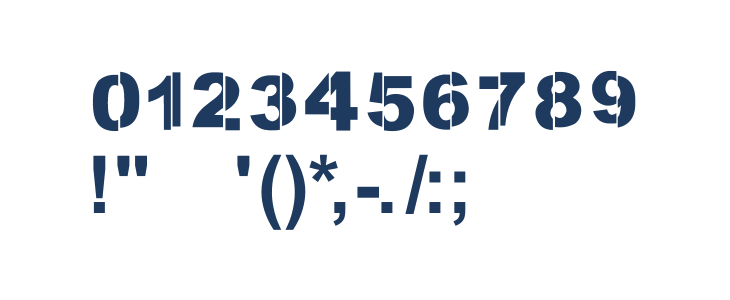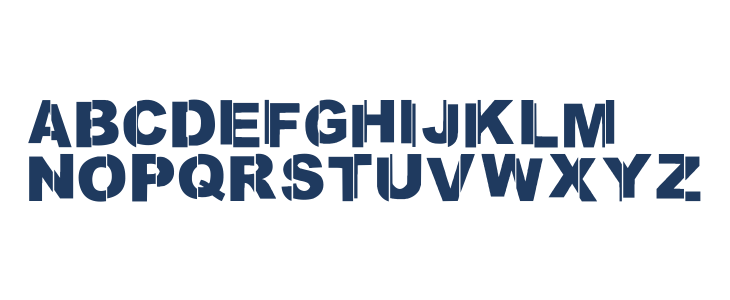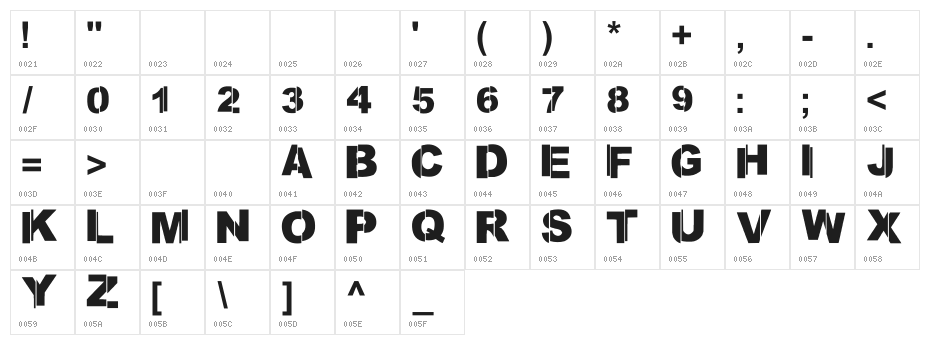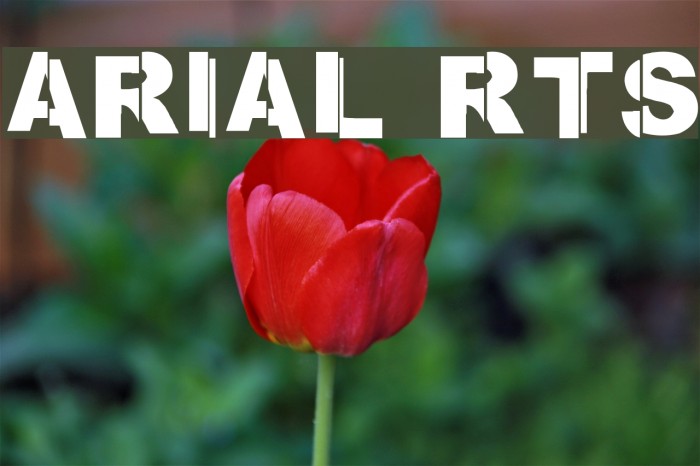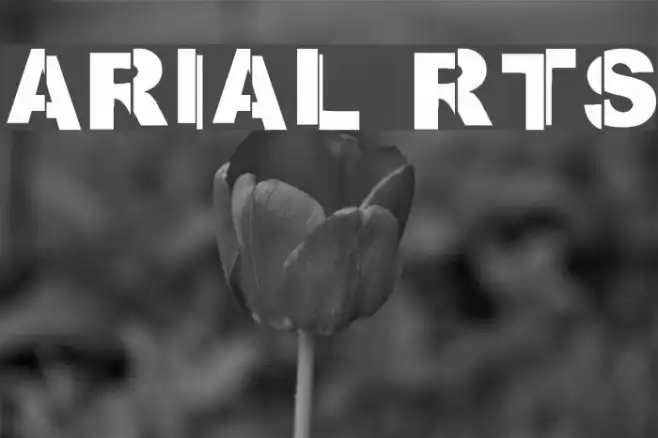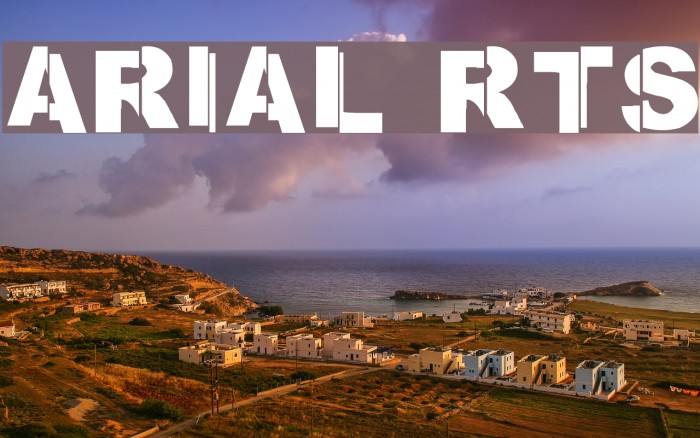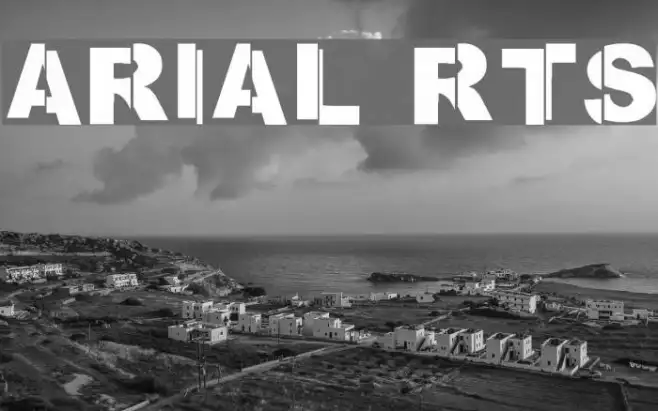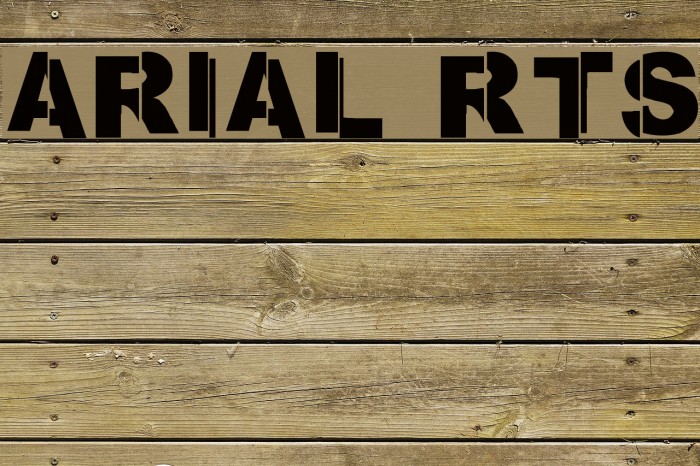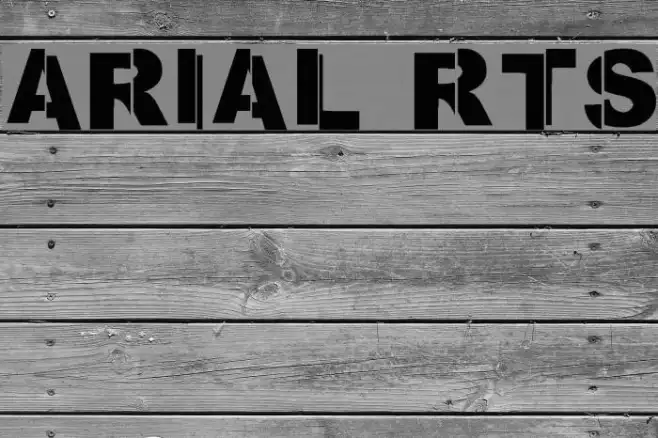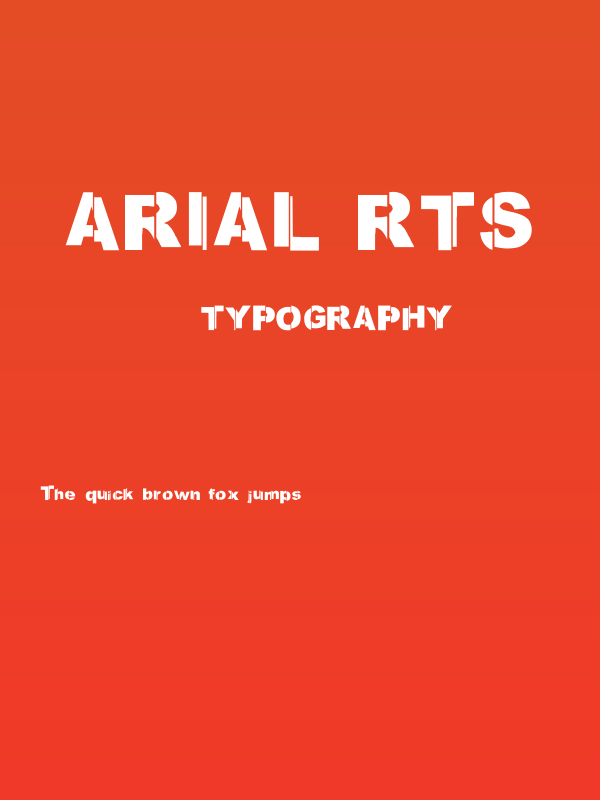
ARIAL RTS Font
ARIAL RTS Description
This font features a bold and impactful design with a strong geometric structure. The characters are blocky and robust, with a distinct stencil-like appearance due to the cut-out sections in each letter. The uppercase and lowercase letters maintain a consistent weight, contributing to a uniform and cohesive look. The numbers and special characters follow the same bold style, ensuring a seamless integration across different text elements. This font's unique style makes it stand out, offering a modern and industrial feel that can be both eye-catching and functional.